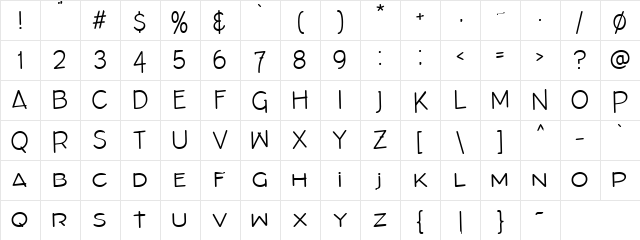
Architects Draft Bold Bold
Foundry: Michael Hassler
Designer: Michael Hassler
Design Context for Architects Draft Bold
Architects Draft Bold is a composed and adaptable typeface that performs quietly and consistently across a wide range of design contexts. Its bold stroke weight gives it real presence on the page.
Who designed the Architects Draft Bold Bold font?